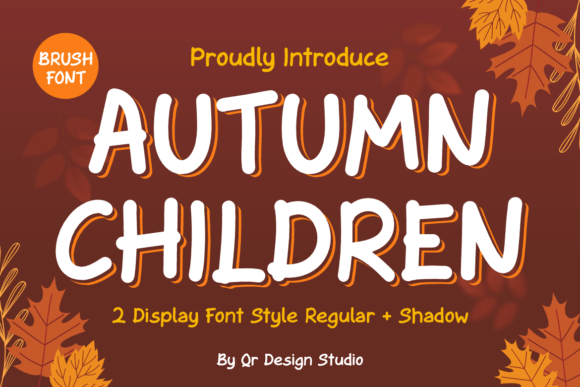
Introducing Autumn Children Font: A Bold and Authentic Handwritten Style
When it comes to choosing the right font for your design project, the options can be overwhelming. However, if you’re looking for a bold and authentic handwritten font that can elevate your creative ideas, look no further than Autumn Children Font. This stunning font is designed to make your designs come alive with its beautiful and well-balanced characters.
The Characteristics of Autumn Children Font
Autumn Children Font is a unique and versatile font that boasts a range of characteristics that make it perfect for a wide pool of designs. Here are some of its key features:
- Bold and Authentic: Autumn Children Font is a bold and authentic handwritten font that adds a touch of personality to your designs.
- Beautiful and Well-Balanced Characters: The font features beautiful and well-balanced characters that are carefully crafted to ensure that your text is easy to read and visually appealing.
- Versatile: Autumn Children Font is a versatile font that can be used for a wide range of designs, from posters and flyers to logos and branding materials.
The Benefits of Using Autumn Children Font
Using Autumn Children Font in your designs can have a range of benefits. Here are some of the advantages of choosing this font:
- Elevate Your Designs: Autumn Children Font can add a touch of elegance and sophistication to your designs, making them stand out from the crowd.
- Improve Readability: The font’s beautiful and well-balanced characters make it easy to read, even at smaller sizes.
- Increase Creativity: With Autumn Children Font, you can add a touch of personality to your designs and bring your creative ideas to life.
How to Use Autumn Children Font in Your Designs
Using Autumn Children Font in your designs is easy. Here are some tips to get you started:
- Pair it with Other Fonts: Autumn Children Font can be paired with other fonts to create a unique and visually appealing design.
- Use it for Headings and Titles: The font’s bold and authentic style makes it perfect for headings and titles.
- Add it to Your Branding Materials: Autumn Children Font can be used in branding materials, such as logos, business cards, and letterheads.
The Design Inspiration Behind Autumn Children Font
The design inspiration behind Autumn Children Font is rooted in the beauty of handwritten typography. The font’s creator aimed to craft a font that would capture the essence of handwritten writing, while also being easy to read and versatile.
The font’s design is influenced by the natural world, with its bold and authentic style evoking the feeling of leaves changing colors in the autumn season. The result is a font that is both elegant and playful, making it perfect for a wide range of designs.
Tips for Getting the Most Out of Autumn Children Font
To get the most out of Autumn Children Font, here are some tips:
- Experiment with Different Sizes: Autumn Children Font can be used at a range of sizes, from small to large.
- Play with Color: The font’s bold and authentic style makes it perfect for use with a range of colors.
- Use it for a Variety of Designs: Autumn Children Font can be used for a wide range of designs, from posters and flyers to logos and branding materials.
In conclusion, Autumn Children Font is a bold and authentic handwritten font that can elevate your designs and bring your creative ideas to life. With its beautiful and well-balanced characters, versatile style, and range of uses, this font is perfect for designers looking to add a touch of personality to their work.